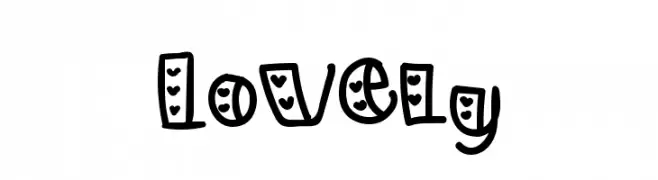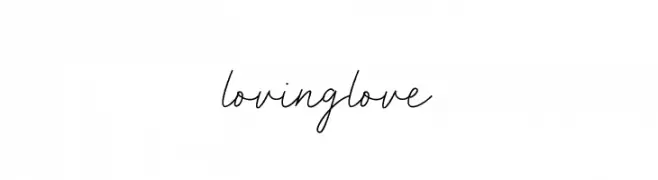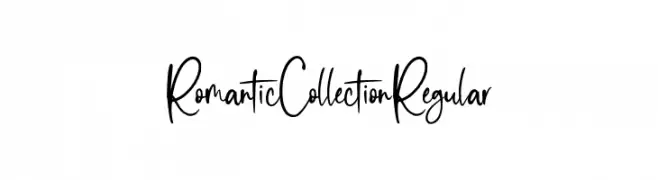
A playful, romantic script font with heart motifs and flowing cursive letters.
A bold, playful handwritten font with smooth curves and a friendly appearance.
A fluid and elegant script font with a dynamic, handwritten style.
A high-contrast, elegant font blending modern and vintage styles with distinctive serifs.
A classic, elegant italic font with smooth curves and refined style.
A graceful script font with fluid, interconnected strokes and a romantic flair.
An elegant script font with intricate swirls, ideal for formal and romantic occasions.
A romantic and whimsical script font with elegant curves and playful accents.
A bold, playful handwritten font with thick, flowing strokes.
A romantic, cursive font with flowing, elegant strokes and playful flourishes.
A bold, high-contrast serif font with sharp, angular serifs.
A bold, geometric font with strong, consistent strokes and a modern aesthetic.
A bold, hand-drawn font with dynamic, marker-like strokes.
A playful and romantic cursive script font with elegant, flowing strokes.
A playful, cursive font with a romantic and handwritten style.
A whimsical and romantic script font with bold strokes and heart motifs.
A decorative font with letters in heart shapes, featuring floral accents.
A playful and elegant handwritten font with fluid, connected letterforms.
A playful and whimsical script font with interconnected letters and a charming looped design.
A playful, handwritten font with tall, narrow letters and a whimsical style.
A romantic and sophisticated script font with flowing, cursive letters and ornate flourishes.
A playful, heart-embellished decorative font with bold, rounded characters.
A bold, heart-adorned decorative font with a playful and romantic style.
A bold, heart-themed decorative font perfect for romantic and playful designs.
An elegant, cursive font with flowing, interconnected letters.
A romantic, cursive font with elegant loops and swashes.
A playful, cursive-like font with flowing strokes and varying thickness.
A playful, handwritten-style font with elegant, flowing lines.
An elegant script font with decorative swirls and loops, perfect for romantic and sophisticated designs.